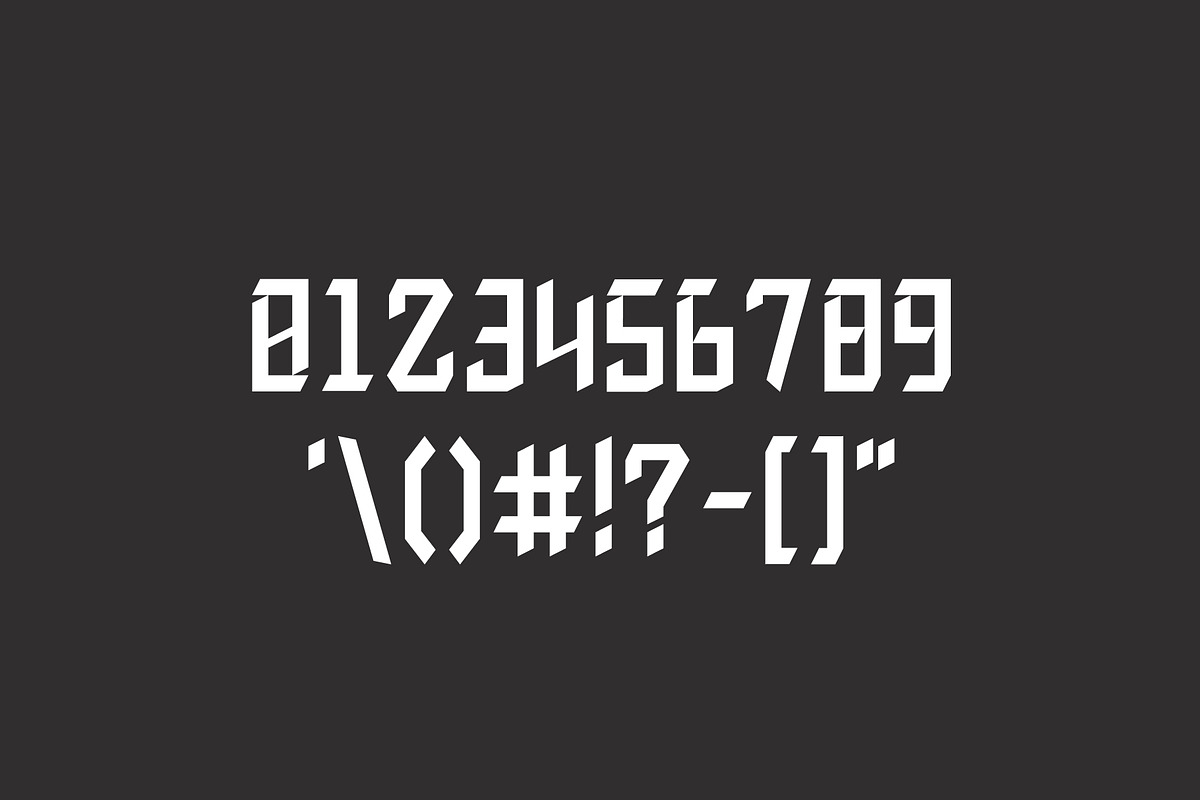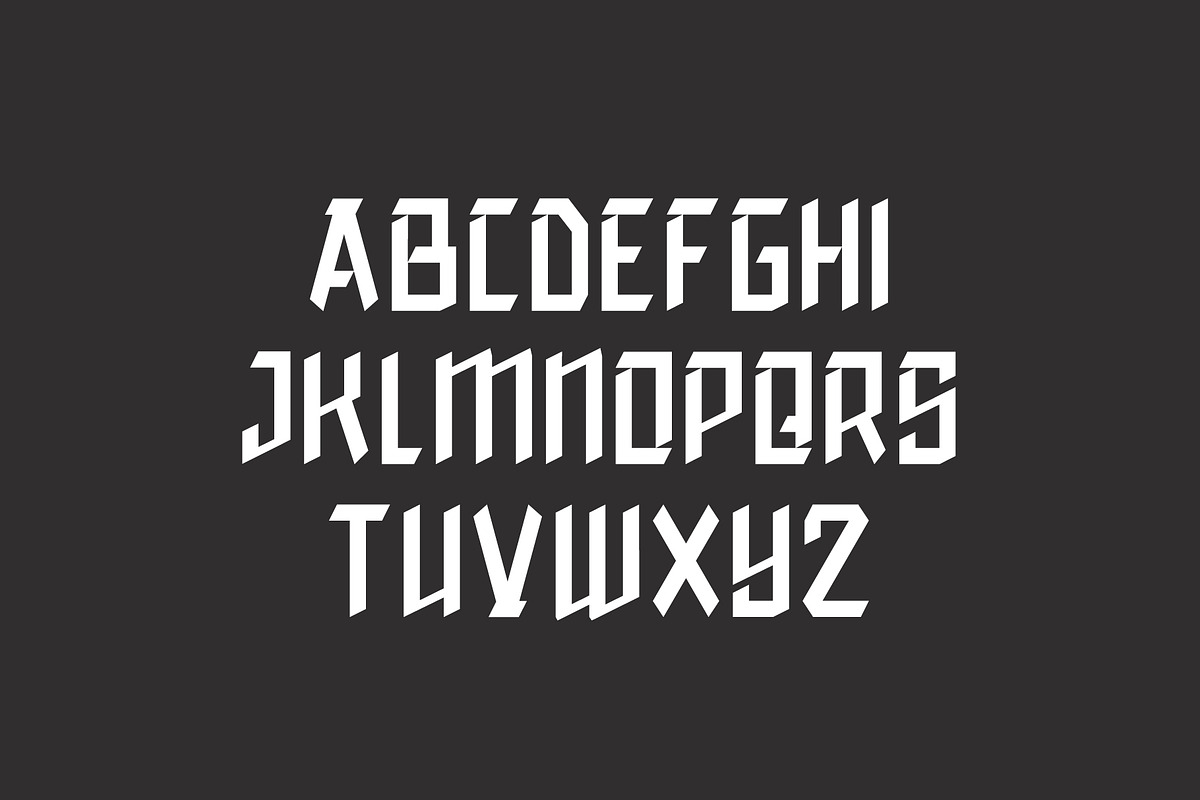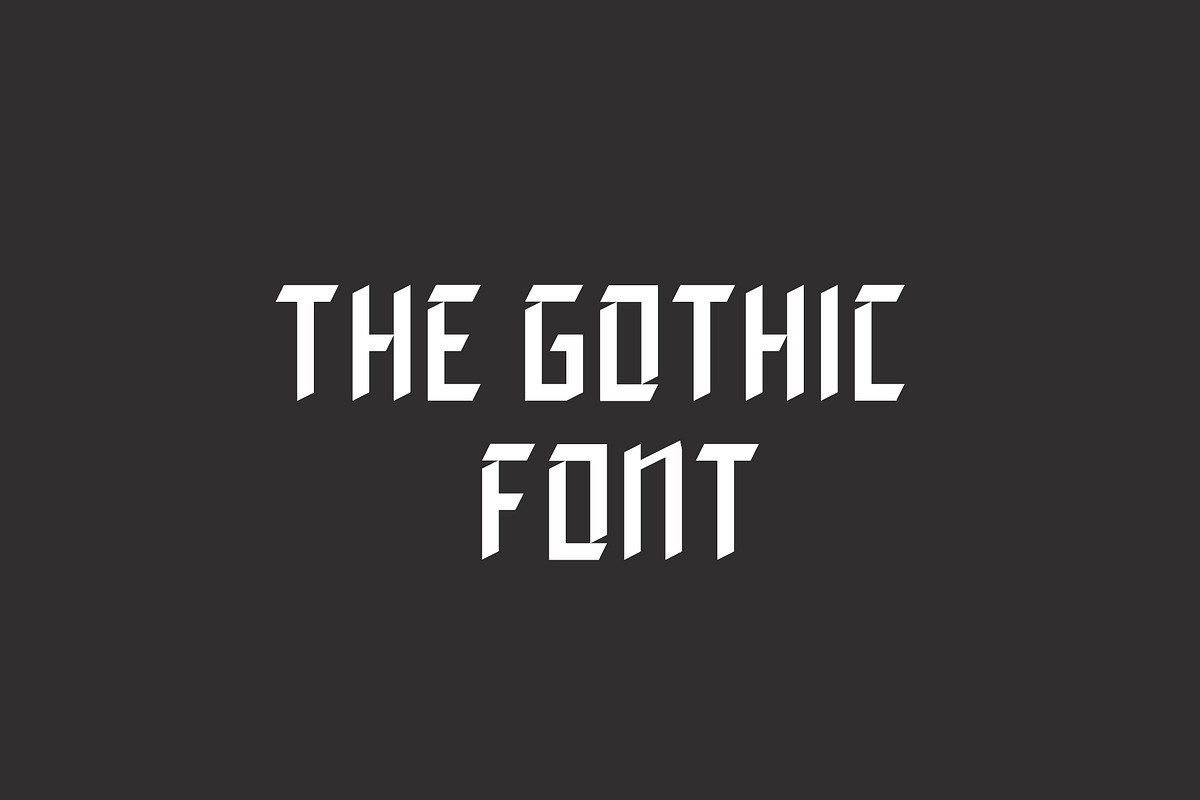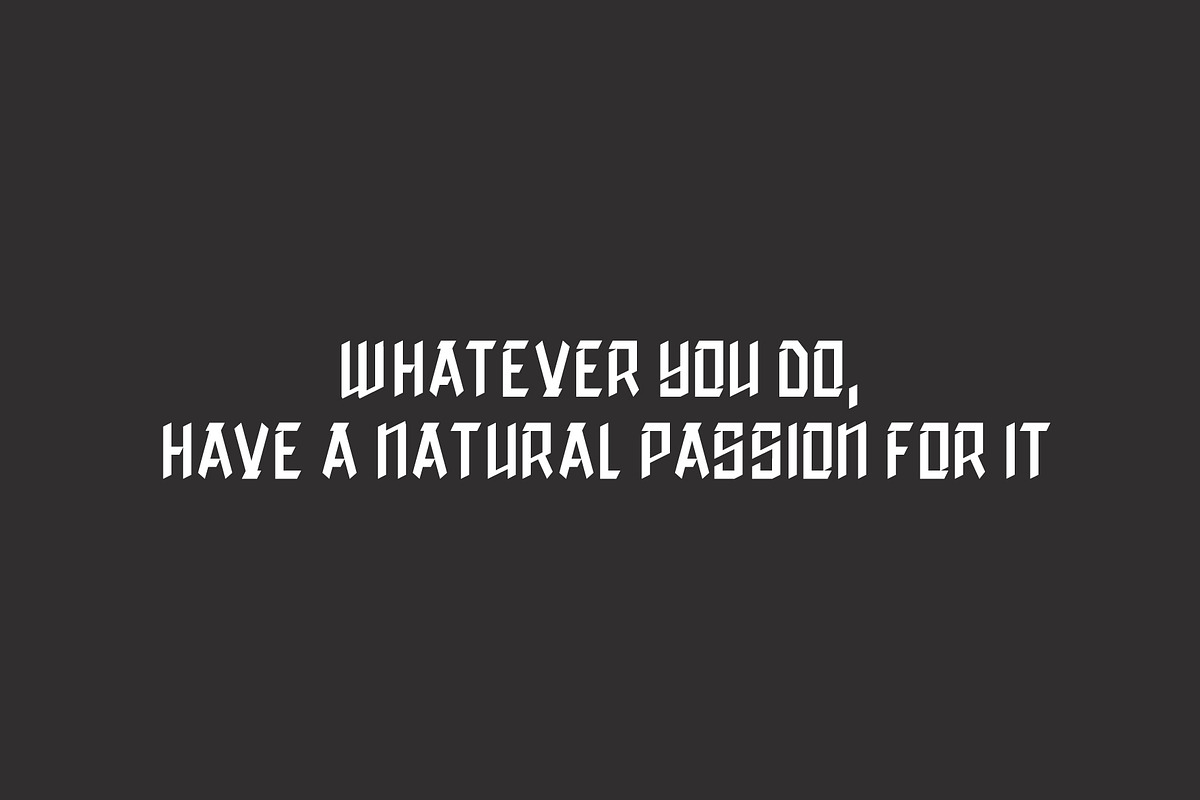
The Gothic Font
a tight gothic font by sven pels
Why The Gothic Font is worth a look
The Gothic Font by Sven Pels fits naturally into Branding, posters, packaging, typography.